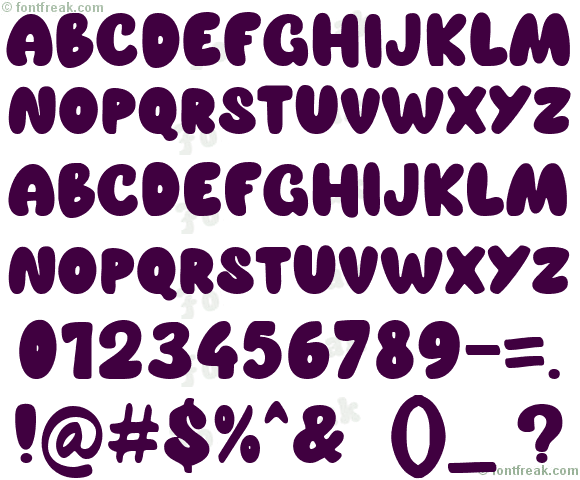
MR.SIMPLY Demo
The MR.SIMPLY Demo font by MJType is an engaging display typeface that captures attention with its playful yet modern aesthetic. This font features a unique handwritten style, characterized by smooth, rounded edges and a casual vibe that brings a personal touch to any design project. The strokes are consistent in weight, creating a harmonious balance that enhances readability while maintaining a fun, informal appearance. The spacing between characters is well considered, allowing for clarity without sacrificing the playful energy that defines this typeface.
Ideal for a variety of creative applications, the MR.SIMPLY Demo font shines in contexts such as wedding invitations, where its charming style can add a whimsical touch to the celebrations. It is also well-suited for children’s book covers, where its friendly appearance can attract young readers. Additionally, this font works wonderfully for restaurant menus, giving a casual dining experience a warm and welcoming feel. Graphic designers and content creators will find this font particularly useful for social media graphics, where the combination of uniqueness and legibility can enhance engagement.
Targeting graphic designers, small business owners, and content creators alike, the MR.SIMPLY Demo font free download offers a refreshing alternative to more conventional typefaces. Its contemporary yet approachable design makes it a versatile choice for anyone looking to infuse personality into their projects.
Ultimately, what sets MR.SIMPLY apart is its ability to convey warmth and friendliness while remaining stylish and modern. This balance makes it a standout choice for those seeking to create memorable designs that resonate with their audience. Whether you're crafting something for a special occasion or looking to elevate your brand's identity, MR.SIMPLY offers the perfect blend of creativity and charm.